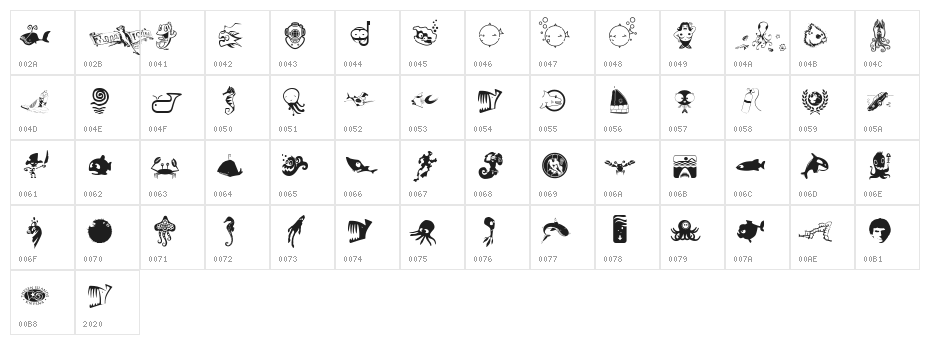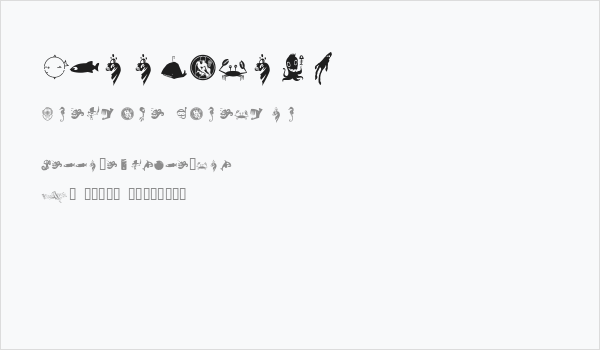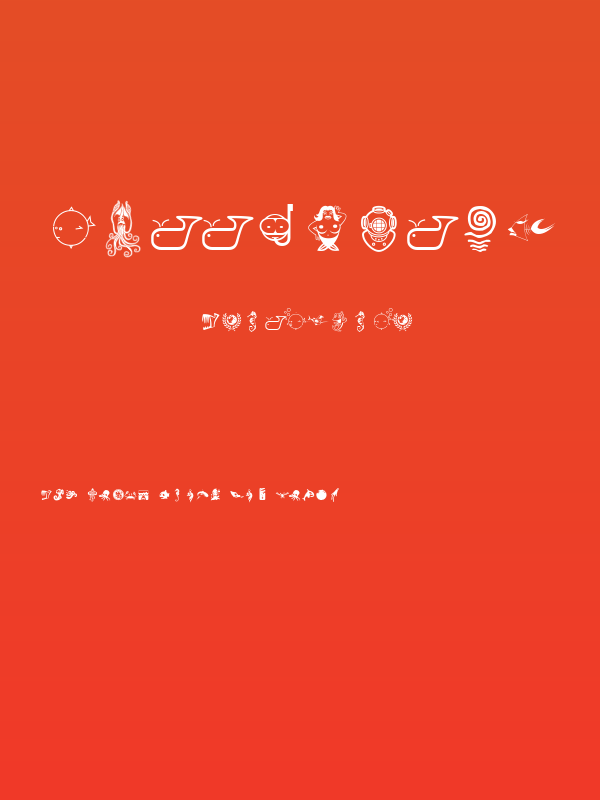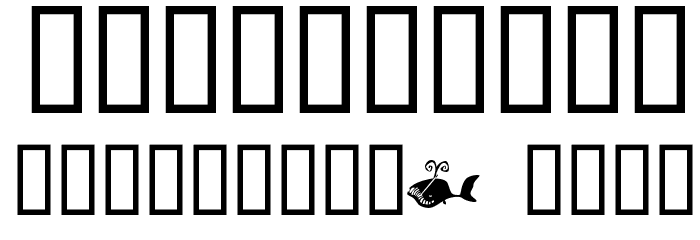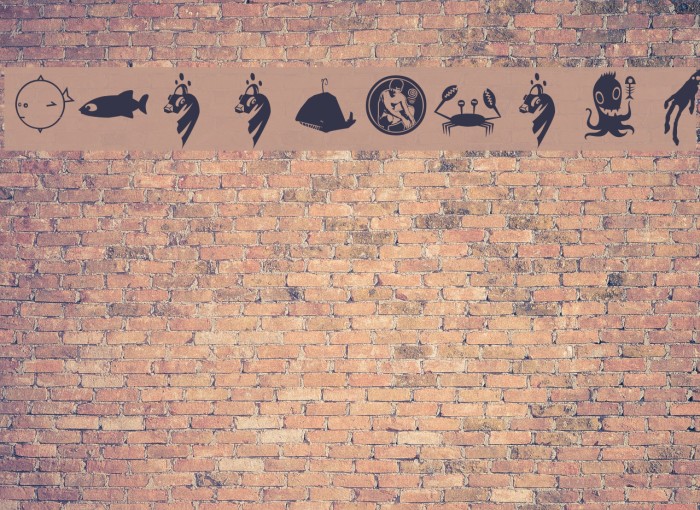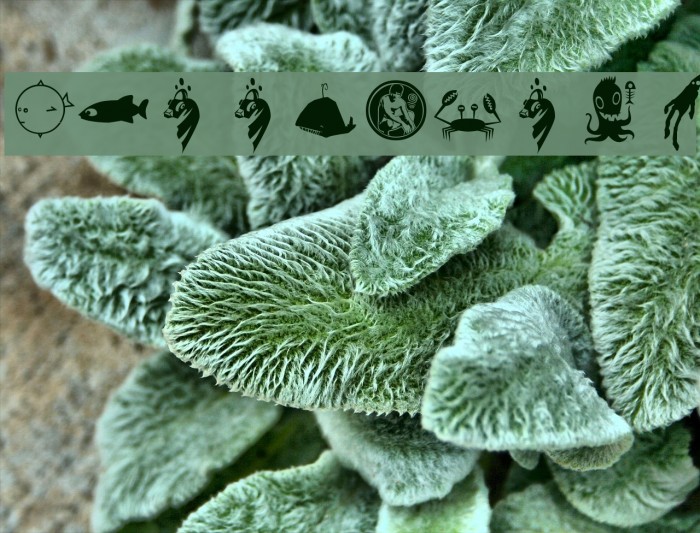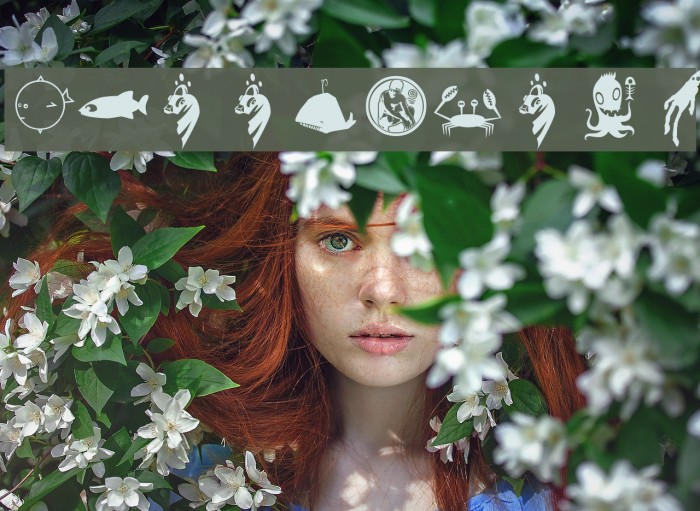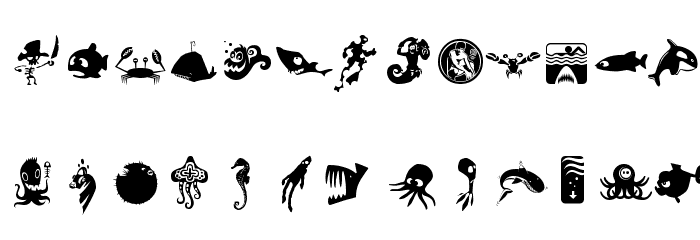
Floodicons Font
Floodicons Description
| Overall Style | Decorative, Playful, Whimsical |
| Use Case | Icons, Decorative elements, Themed graphics |
| Proposed Projects | Children’s books, educational materials, party invitations, themed posters, scrapbooking, and playful branding. |